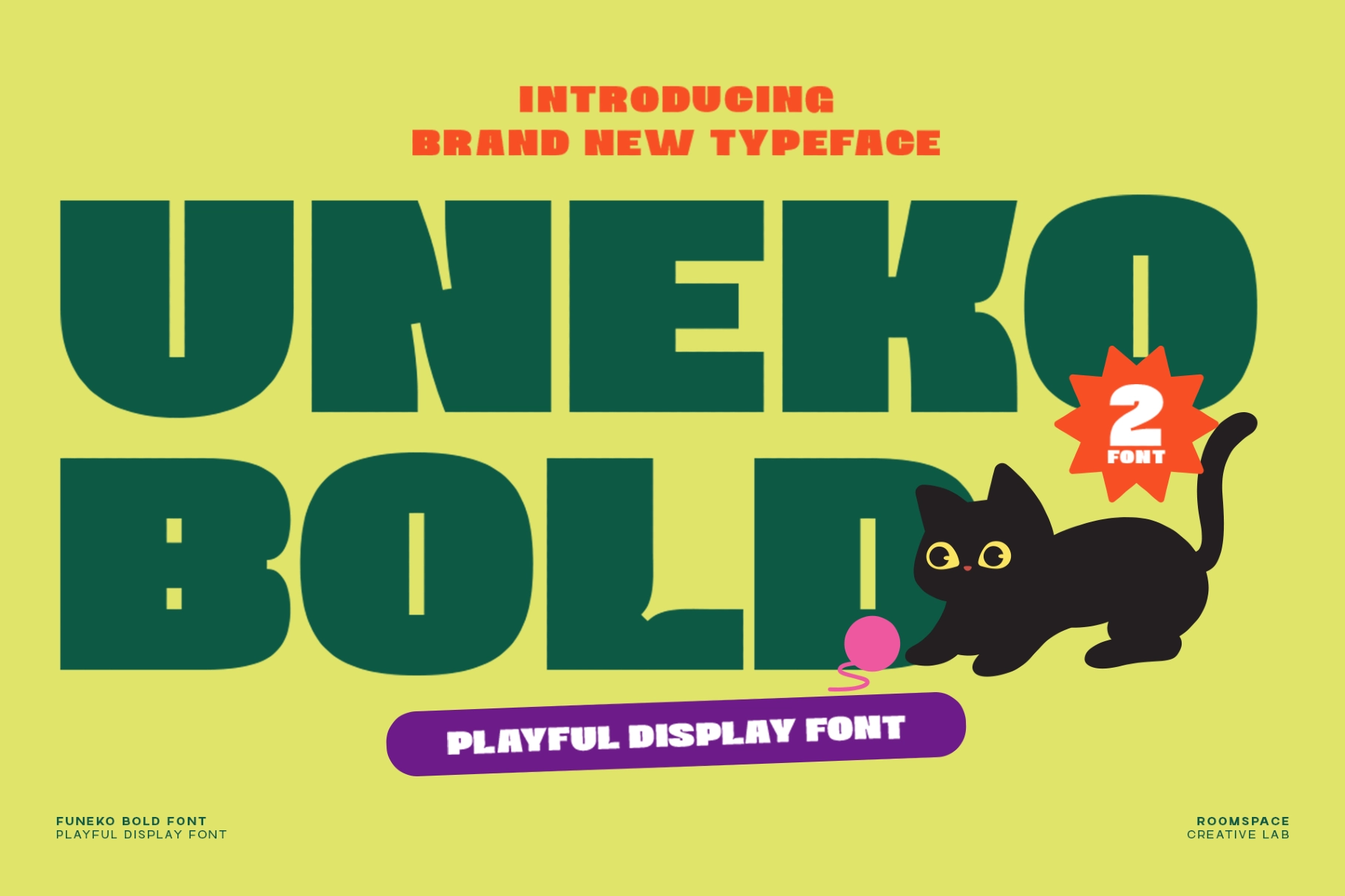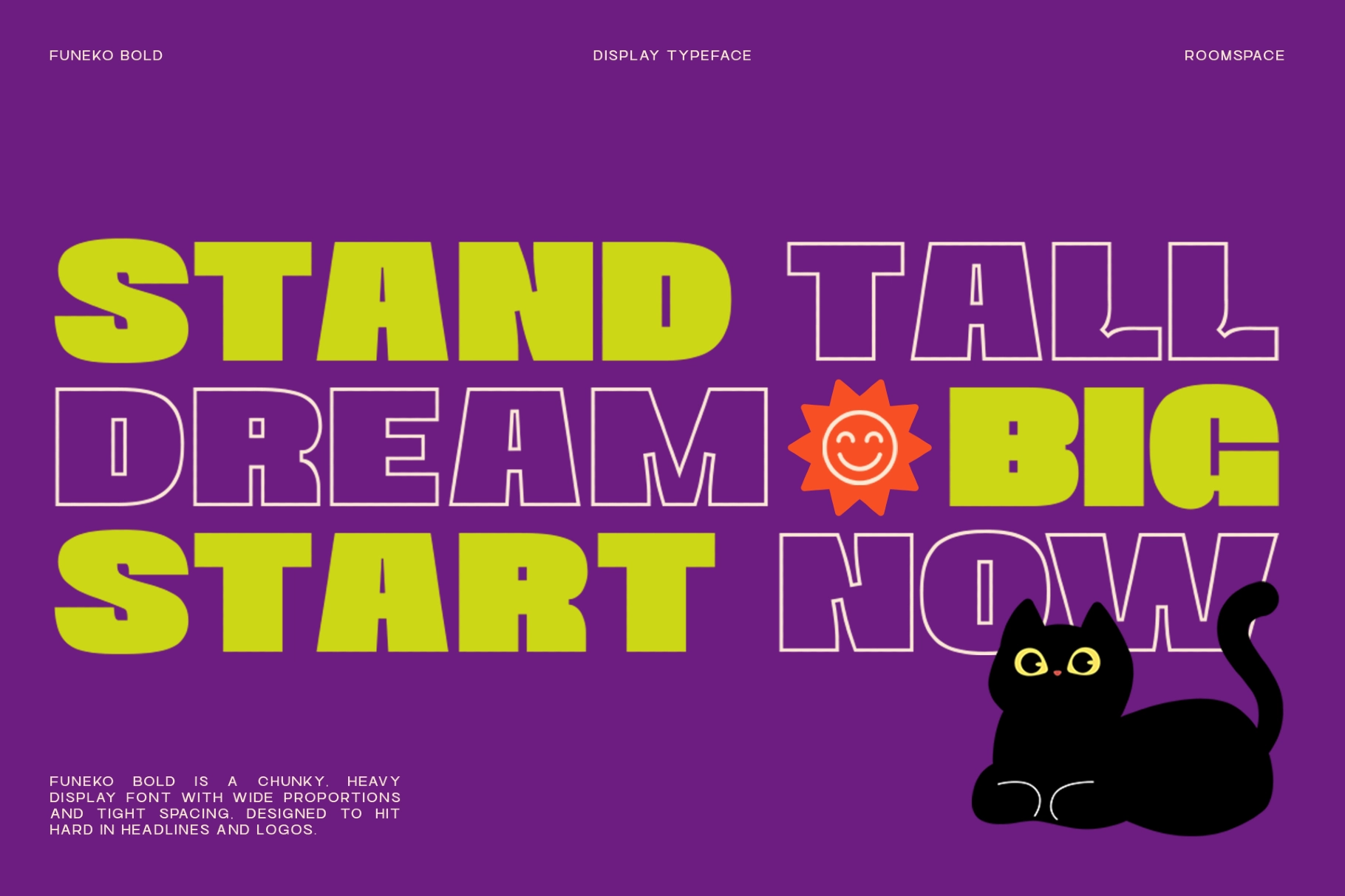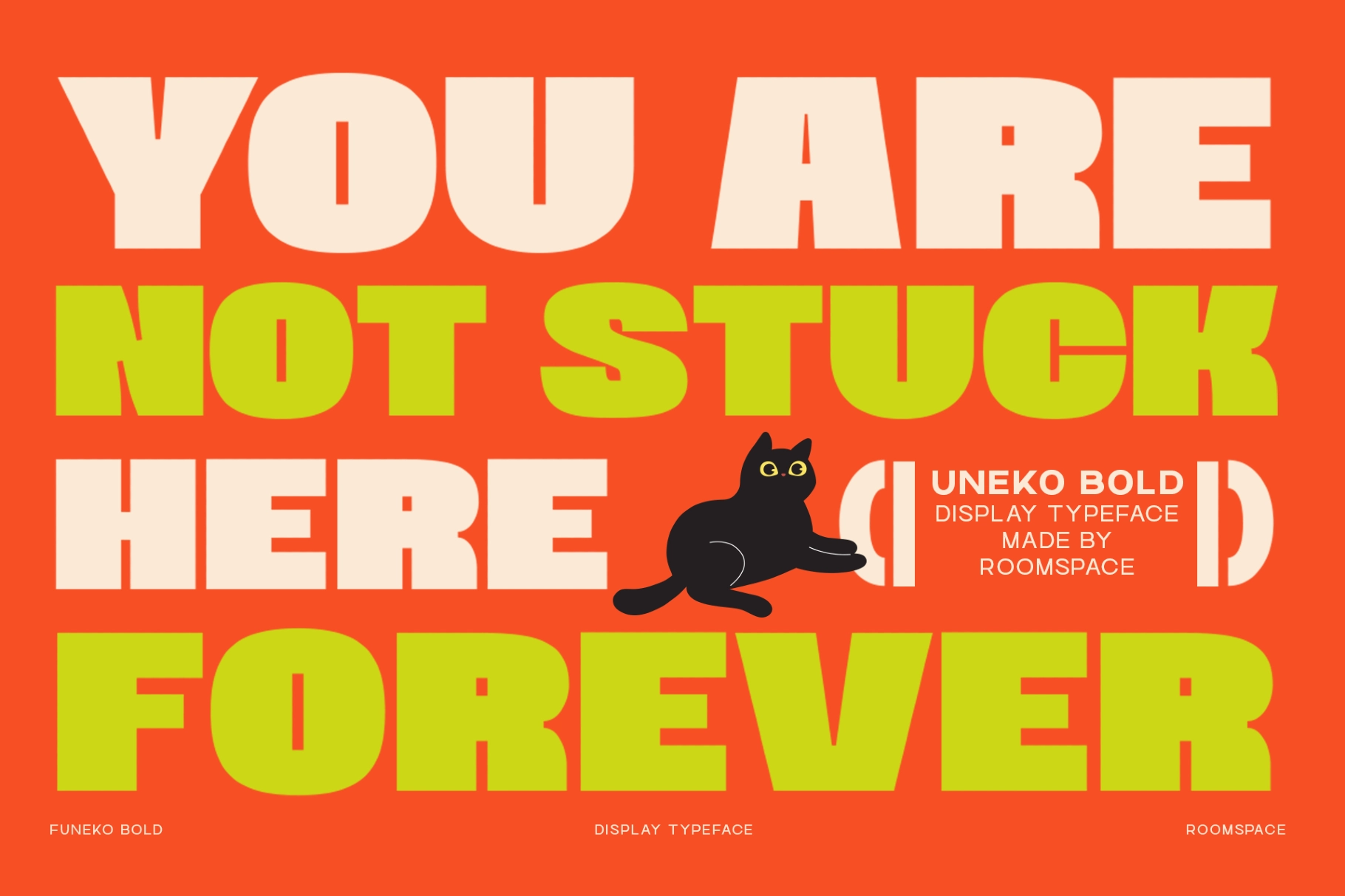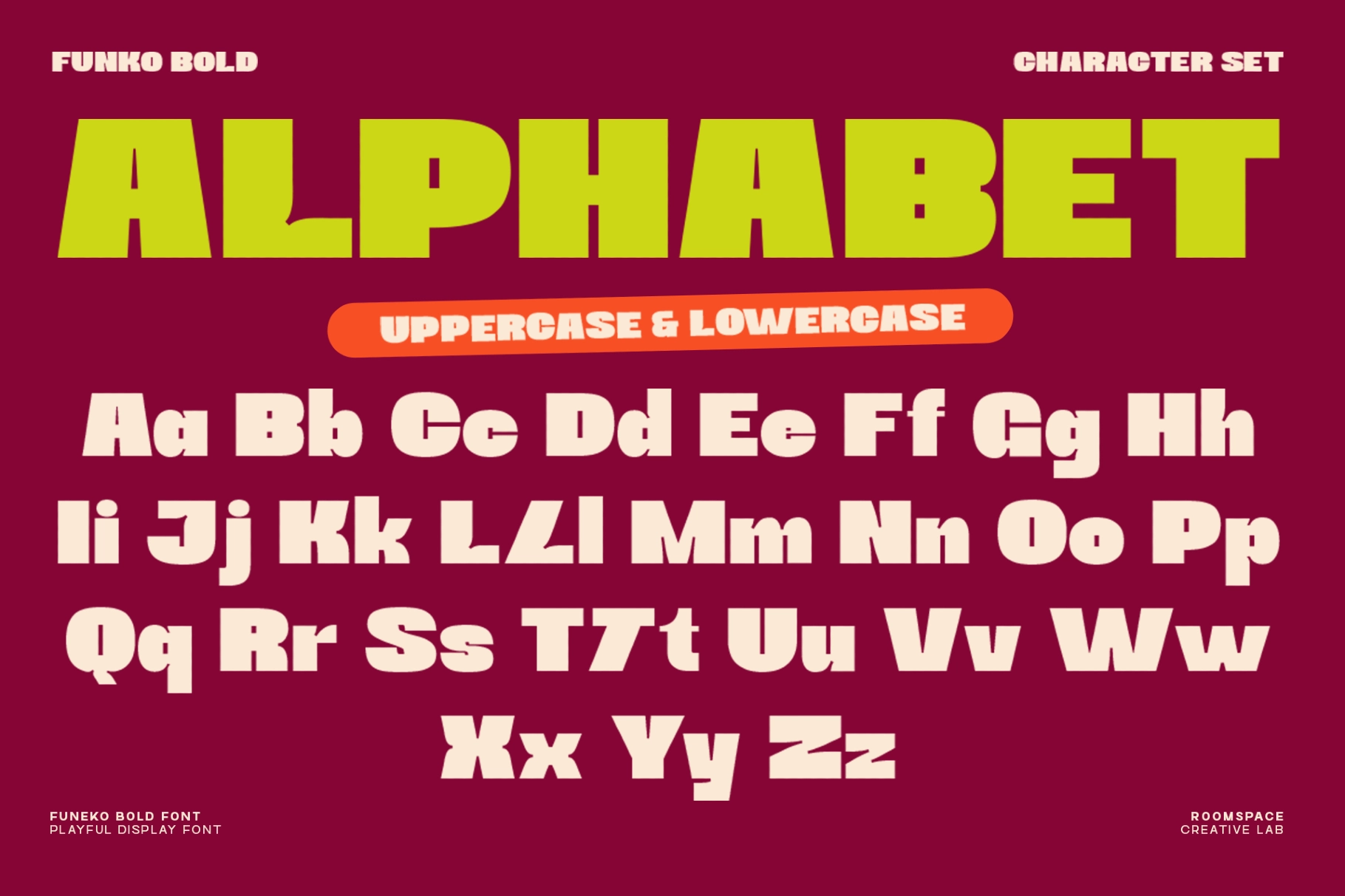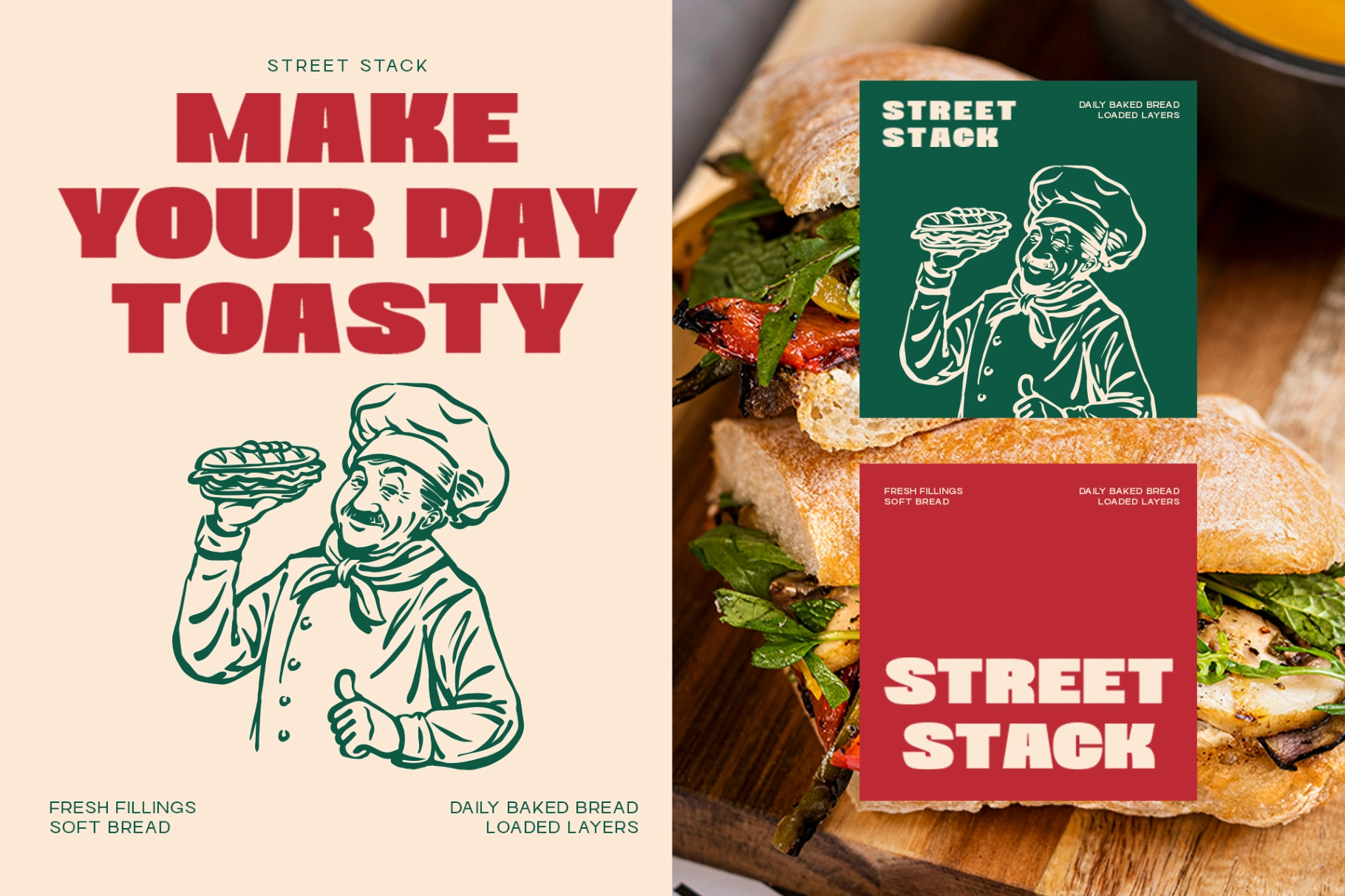
Uneko Bold – Playful Chunky Display Font
This playful display font is chunky, loud, and packed with rounded cartoon charm. Its heavy shapes, tight spacing, and bouncy proportions give headlines a bright, friendly punch that works especially well for kids’ projects and upbeat brand visuals.
Uneko is made for children’s branding, toy packaging, game titles, storybooks, educational worksheets, YouTube thumbnails, playful posters, snack labels, party invitations, sticker designs, character merch, social media graphics, and family-focused campaigns. It has the confidence of a headline that ate its cereal and chose chaos responsibly.